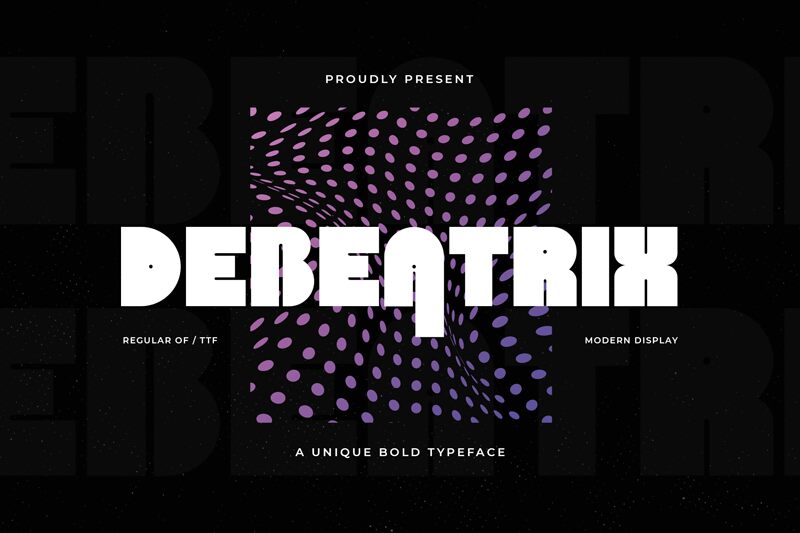
Debeatrix font is a groovy display typeface designed by Typefactoryco, carefully handcrafted to become a true favorite. With a bold font style, casual charm and down-to-earth feel, Debeatrix offers readability and ultimate versatility. Its bold letters stand out beautifully, making this the ideal choice for visually striking projects.
This font will look outstanding in any context, whether it's being used on busy backgrounds or as a standalone headline especially on aesthetic design!